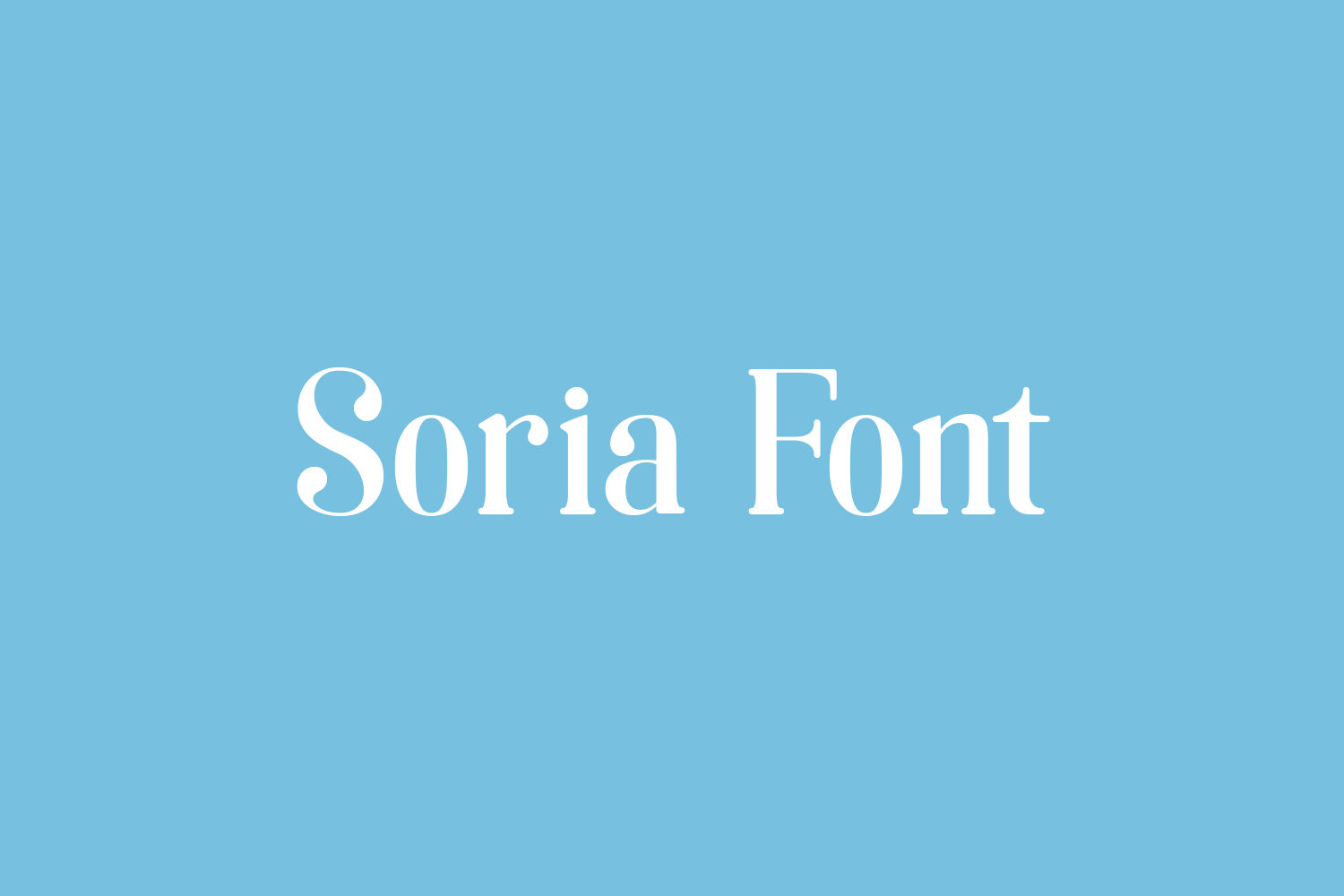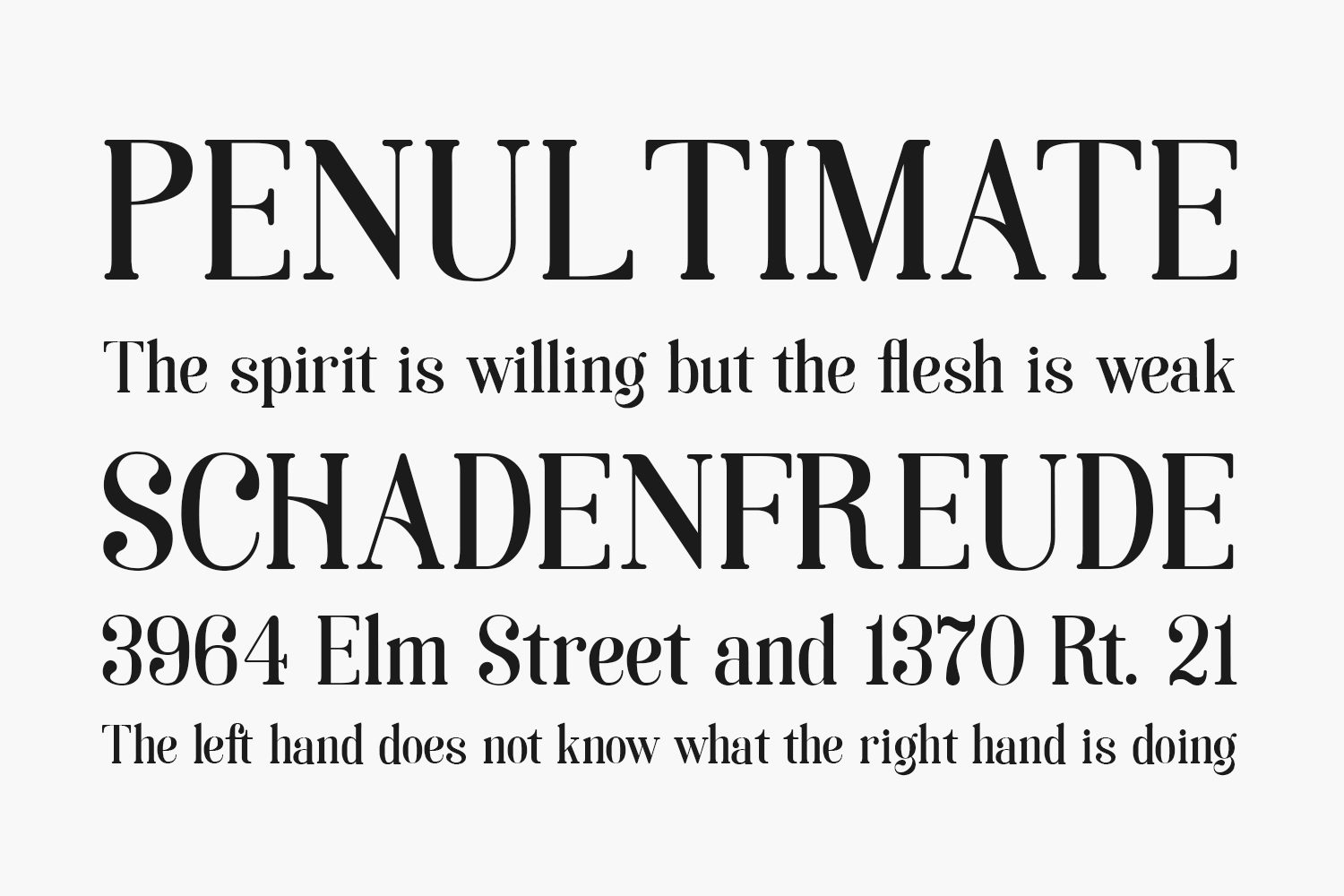
Soria Free Font has been created under art noveau influence and the didot fonts, as a result, we have a modern and actual type that we can use it for display texts.
Designed by By Dani